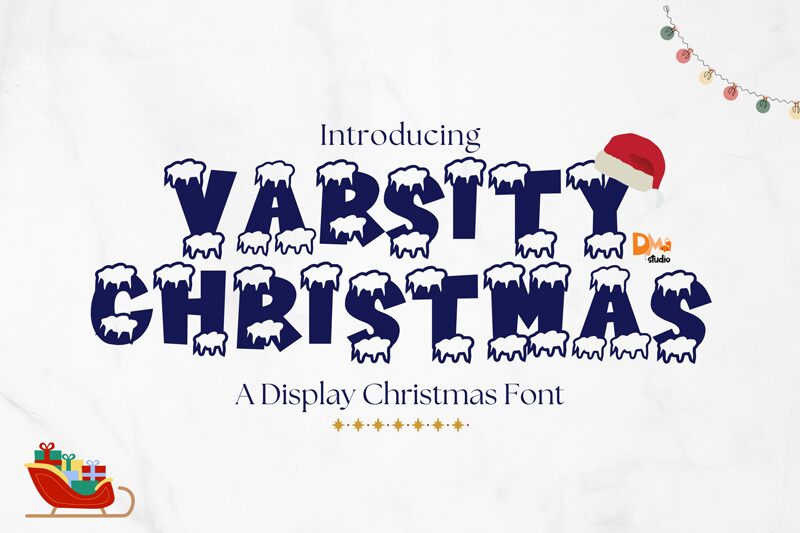
Varsity Christmas font by Dimas Prasetyo of DM Letter Studio is a playful holiday font designed to bring a festive spirit into any typographic work. This free font has that special Christmas charm, guaranteed to inspire a cheerful Christmas ambiance in your work. Its standout feature is its bold presence that’s impossible to ignore, and that will capture the attention of any viewer.